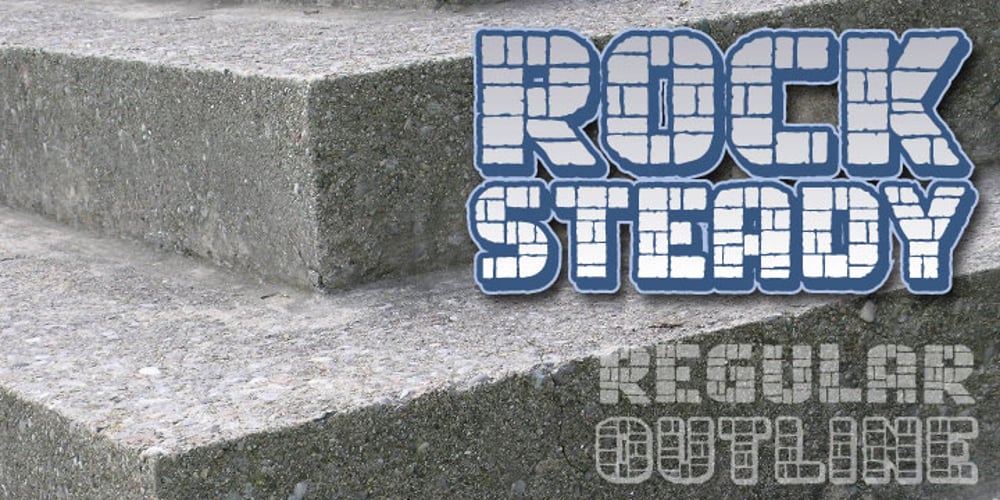
Rock Steady BB Font Family was designed by Nate Piekos and published by Blambot. Rock Steady BB contains 4 styles and family package options. Rock Steady BB is a chunky design font made to look like aged brickwork. Comes with Regular and Outline and has a hefty compliment of European characters!